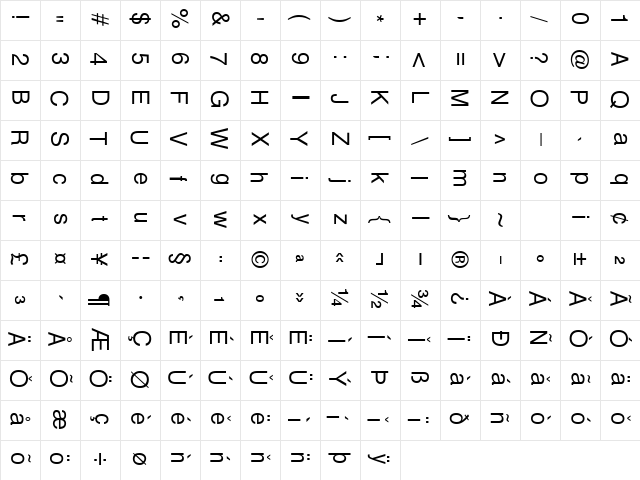
TomatoRolledRight Regular Font Preview
TomatoRolledRight Regular
TomatoRolledRight Regular Font Details
Design Context for TomatoRolledRight Typeface
TomatoRolledRight takes a measured approach to typography — its balanced proportions and neutral character make it a reliable workhorse for both digital and print work.